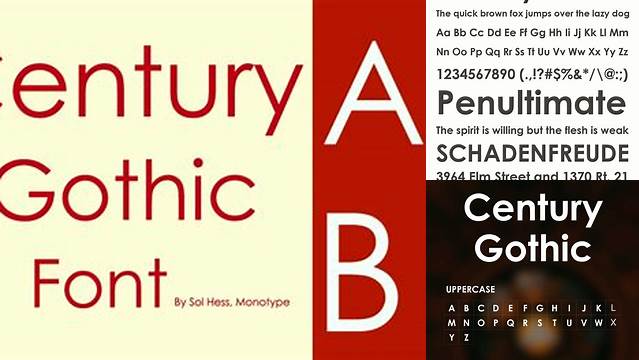
Understanding Century Gothic: The Font's Legacy
Century Gothic isn't just another font; it's a design icon. Known for its clean lines, geometric structure, and a touch of modernism, it's a sans-serif typeface that's been winning hearts since its release. Initially designed by Sol Hess, it was created in 1980 for the Monotype Corporation. What makes Century Gothic so special? Well, its design is based on the earlier Twentieth Century font, but with some significant changes that enhance its readability and appeal. The font's distinctive characteristics include its perfectly circular 'o' and 'g', and its unique 'a' and 'g' shapes. These features make it instantly recognizable, whether you're looking at a poster, a website, or a document. Century Gothic's appeal lies in its versatility. It's neither too formal nor too casual, making it suitable for a wide range of applications. You'll find it everywhere, from professional documents to creative projects. That is why it is so popular that we are talking about download free font century gothic. This makes it an excellent choice for body text in digital and print media. Its legibility ensures that your message gets across clearly and effectively. Century Gothic is not just a typeface; it's a statement. It's a blend of classic aesthetics and modern functionality, making it a timeless choice for designers and writers. The font’s consistent style across different weights ensures visual harmony, which is very important for professional-looking designs. Another reason for its popularity is its availability on various platforms. It's pre-installed on many operating systems, which increases its accessibility. The ability to easily obtain and use it makes it a go-to choice for both beginners and experienced designers. The use of this font has been extensive, spanning across corporate branding, editorial design, and user interface design. Whether you are designing a brochure, a website, or a simple email, Century Gothic can enhance your content, giving it a polished and professional look. The font has a subtle elegance that can elevate any design project. Its ability to create a balanced and visually appealing composition is a key factor in its widespread acceptance. It is very important to understand these subtle details before going to download free font century gothic.